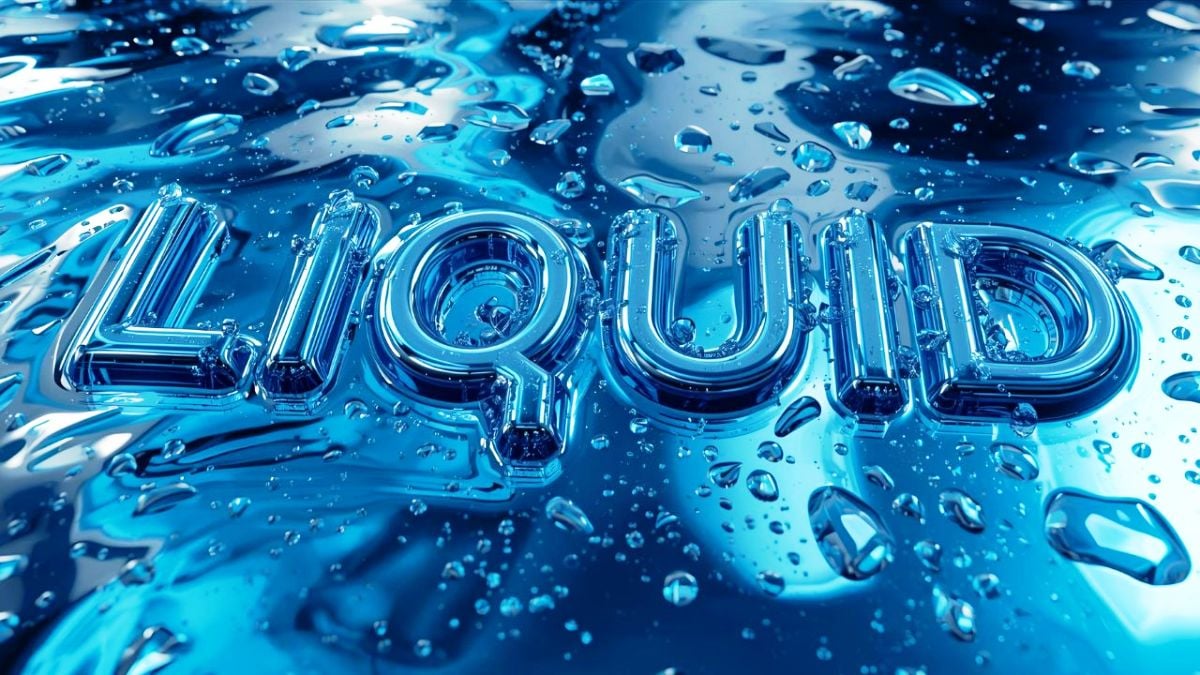
What is Liquid Font?
Liquid fonts capture the essence of flowing water and fluid motion, creating typography that appears to be in constant movement. Our Liquid Font Generator lets you create stunning flowing text using premium liquid fonts like Cair, Lequa Hyper, Swimming Pool Demo, and Yabasah. Perfect for modern designs, creative projects, and artistic typography that needs a fluid, dynamic feel.
Experience the beauty of liquid typography with our comprehensive collection featuring authentic flowing fonts that bring movement and fluidity to your text designs.
💧 Key Features
🌊 Flowing Liquid Fonts
Access premium liquid fonts including Cair, Lequa Hyper, Swimming Pool Demo, and Yabasah for authentic flowing typography.
🎨 Fluid Customization
Customize your liquid text with colors, effects, and styles perfect for modern and creative designs.
✨ Dynamic Effects
Add flowing animations, wave effects, and liquid motion to make your typography come alive.
🎪 Modern Projects
Perfect for contemporary designs, logos, branding, and any project needing fluid, modern typography.
💧 Perfect For Liquid Font
🎨 Modern Design
- Contemporary branding and logos
- Website headers and titles
- Social media graphics
- Digital art projects
🌊 Creative Projects
- Poster and flyer designs
- Magazine and book layouts
- Advertising campaigns
- Artistic typography
💻 Digital Content
- YouTube thumbnails
- Instagram stories and posts
- TikTok video titles
- Digital marketing materials